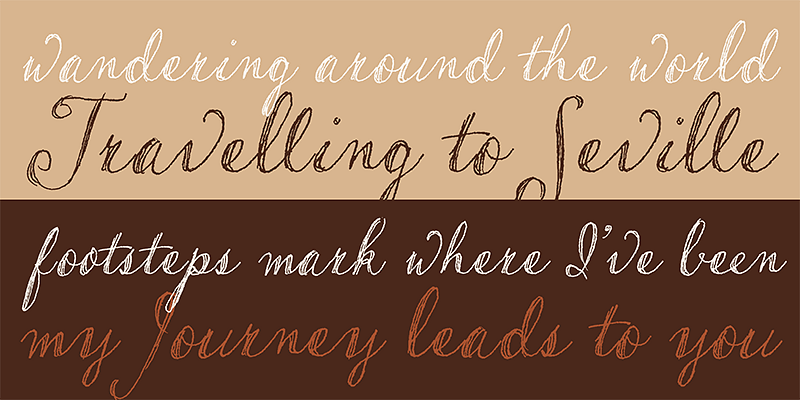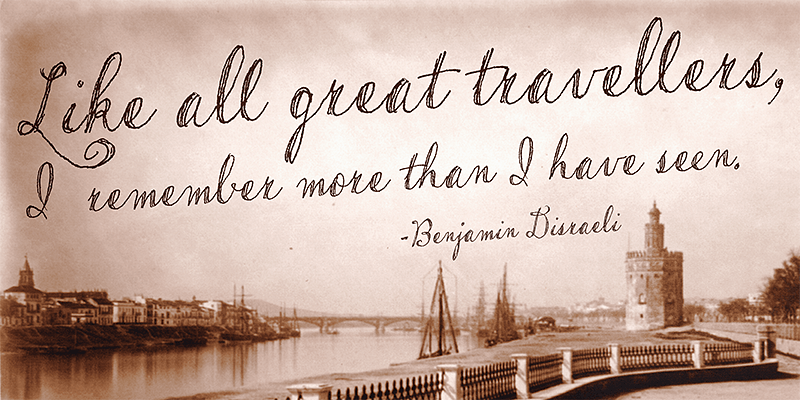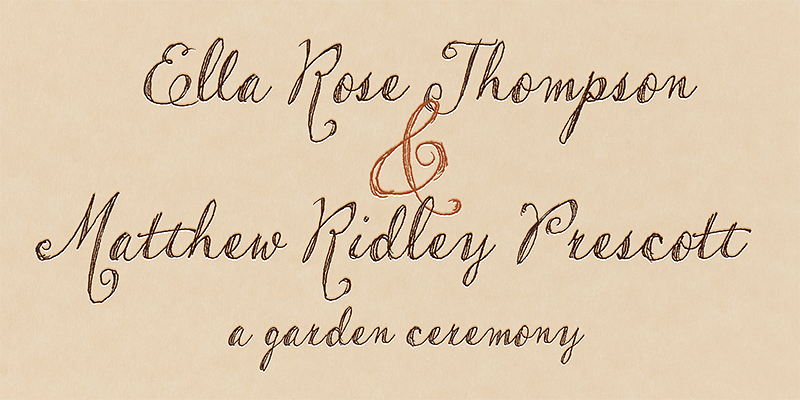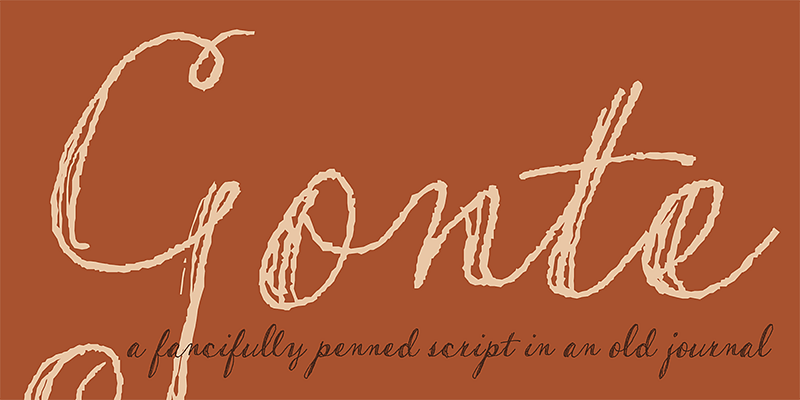
Some of the best lettering does not begin at a desk. It begins in a sketchbook.
Gonte was inspired by handwritten notes captured while traveling abroad: quick impressions, quiet observations, and small moments gathered along the way. Rediscovered years later in an old journal, those loose pen strokes became the foundation for this fanciful, free-flowing script.
Gonte feels warm, expressive, and slightly weathered, like ink moving across textured paper. Its looping strokes and uneven rhythm give it a personal, literary quality suited to travel stories, journals, invitations, packaging, keepsakes, romantic messages, and designs with a sense of memory or discovery.
The font includes double-letter ligatures for smoother rhythm, contextual swashes that can gracefully begin and finish words, and stylistic alternates for lowercase v and w to preserve its carefree hand-penned character.
Gonte carries the romance of wandering — part journal, part letter, part remembered place.